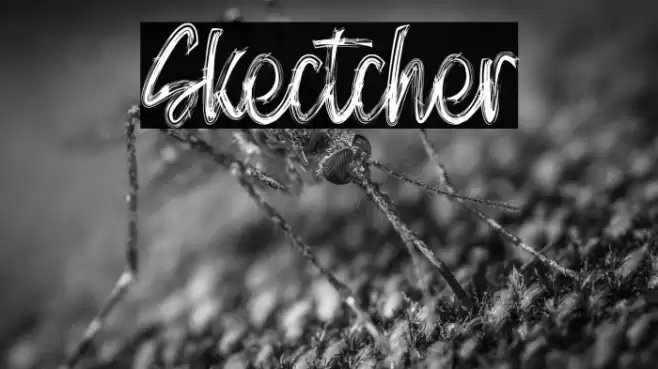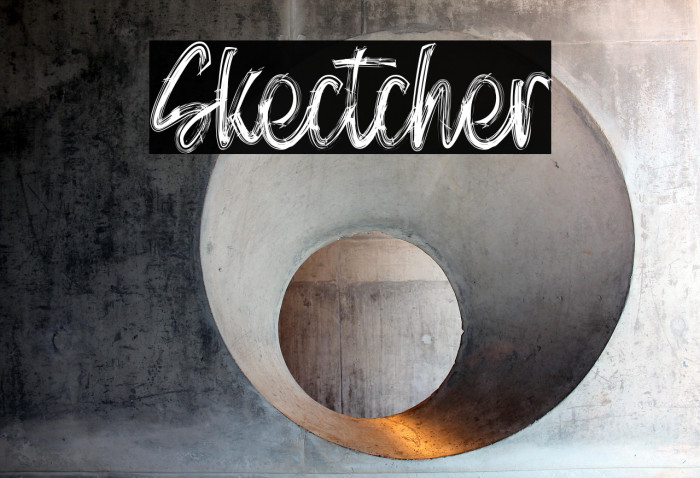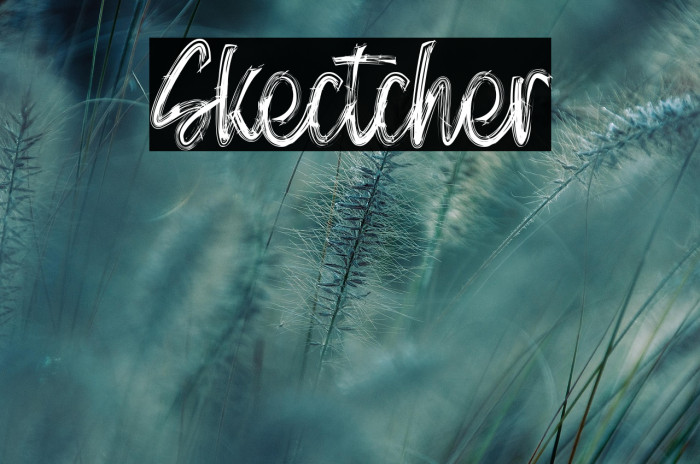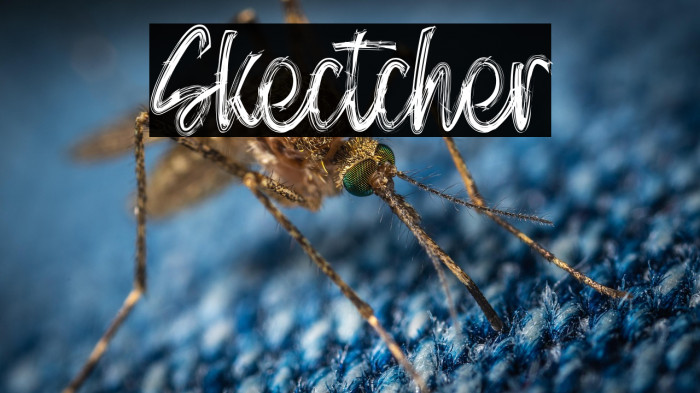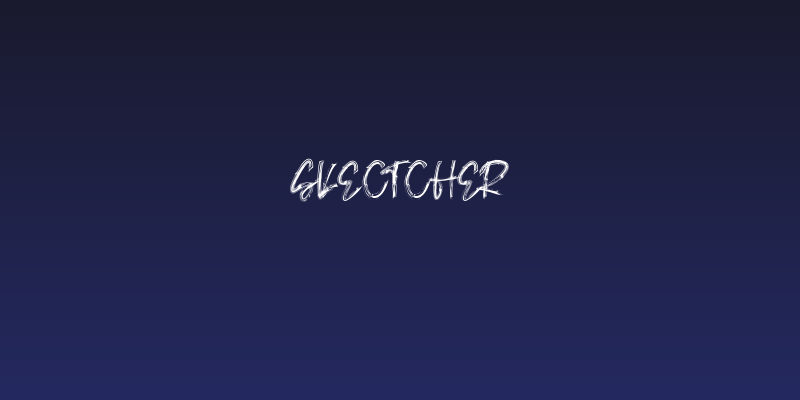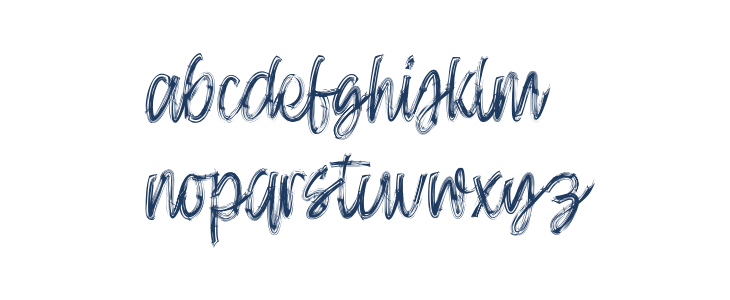
Skectcher Font
Skectcher Description
This font exudes a dynamic and energetic vibe, characterized by its sketch-like, hand-drawn appearance. The strokes are bold and expressive, with a rough texture that gives it a raw, artistic feel. Each letter seems to be crafted with a brush, showcasing varying thicknesses and a sense of movement. The uppercase and lowercase letters maintain a consistent style, while the numbers and special characters complement the overall aesthetic. This font is perfect for projects that require a personal touch or a creative flair, making it ideal for artistic designs, posters, and branding that seeks to stand out.
A bold, sketch-like font with a dynamic, hand-drawn appearance from Regular fonts.